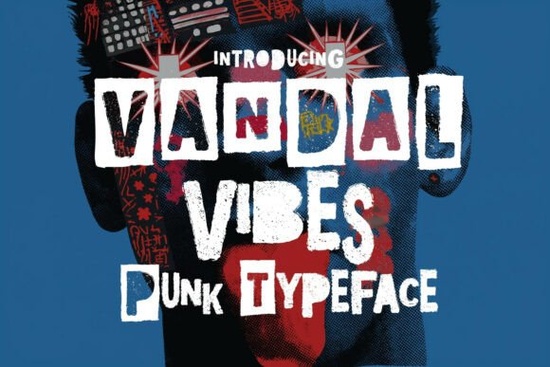
Vandal Vibes Font is a standout choice for anyone looking to add a rebellious edge to their design projects. Whether you're creating t-shirts, posters, or social media graphics, this font brings a unique energy that sets your work apart. Its raw, unpolished look captures the essence of punk culture and street art, making it perfect for those who want to express a bold, unconventional style.
Designed with both creativity and practicality in mind, Vandal Vibes offers two distinct styles: Regular and Textured. The Regular style features clean, impactful letterforms that maintain strong readability while still exuding attitude. This makes it ideal for headlines, logos, and other display purposes where clarity and visual punch are essential. The Textured style, on the other hand, adds a layer of grit and chaos, giving your designs a distressed, handmade feel that feels like it's been torn from the streets.
If you're drawn to fonts that have a story or a sense of history, Vandal Vibes delivers. It’s not just a typeface it’s a visual language that speaks to the DIY spirit and the underground scene. The font’s versatility allows it to work in a variety of contexts, from branding and packaging to digital illustrations and print materials. Its ability to shift between clean and chaotic styles gives designers full control over how they want to present their message.
What Makes Vandal Vibes Unique?
Vandal Vibes stands out due to its blend of structure and rebellion. Unlike many display fonts that lean too heavily into one aesthetic, this typeface balances boldness with character. The Regular style ensures that your text remains legible even at smaller sizes, while the Textured style adds a rough, tactile quality that can be used as a background element or to create contrast in your compositions.
For designers who want to experiment with texture and depth, the Textured style offers a range of options. It can be used to simulate the look of spray paint, torn paper, or graffiti, adding a dynamic feel to any project. This flexibility makes it a valuable tool for those working in graphic design, illustration, or even product packaging.
When to Use Vandal Vibes
This font is especially well-suited for projects that aim to convey a sense of energy, defiance, or nostalgia. It works great for music-related designs, such as album covers, concert posters, or merchandise. It also fits well with themes like vintage aesthetics, urban culture, or alternative lifestyles. If you're looking for a font that can bring a bit of chaos to your work without sacrificing clarity, Vandal Vibes is an excellent option.
How to Get the Most Out of Vandal Vibes
To make the most of Vandal Vibes, consider pairing it with simpler fonts for balance. For example, using the Regular style with a clean sans-serif or serif font can help keep your design from feeling too overwhelming. On the other hand, using the Textured style alongside a minimalist layout can create a powerful visual contrast that draws attention.
Experimenting with color is another way to enhance the impact of this font. Bold, high-contrast colors like black on white or red on black can amplify its aggressive tone, while more muted tones can soften its edge for a different kind of statement.
- Try using the Regular style for headlines and the Textured style for background elements.
- Pair it with simpler fonts to avoid visual clutter.
- Test different color combinations to find what best suits your design.
- Use it in small doses for maximum impact.
Whether you're a designer, crafter, or small business owner, Vandal Vibes offers a fresh and powerful way to express your creative vision. Its unique blend of raw energy and readability makes it a versatile addition to any font collection.